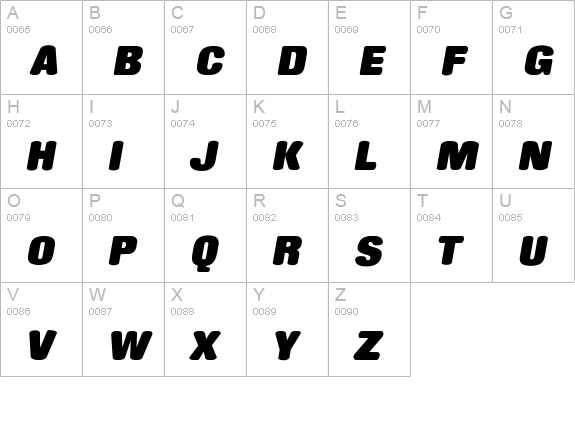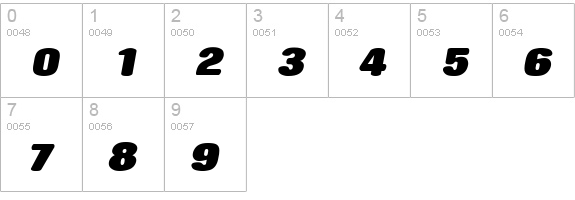
RollingStone Italic Font Details
RollingStone Italic is a distinctive, italic variant in the RollingStone typeface family \xE2\x80\x94 well suited to design and typography projects.
RollingStone Italic font exudes a sense of sleek sophistication and modern elegance. With its stylish slanted letters and unique design, this font adds a touch of flair to any project. Whether you're designing a sleek logo, crafting a modern website, or creating eye-catching marketing materials, RollingStone Italic font is sure to make a bold statement. The best part? RollingStone Italic font is available for free download at FontsMarket.com. That's right - you can add this stunning font to your collection without spending a dime. Don't miss out on the opportunity to enhance your designs with the striking beauty of RollingStone Italic font. Download it today and let your creativity shine!